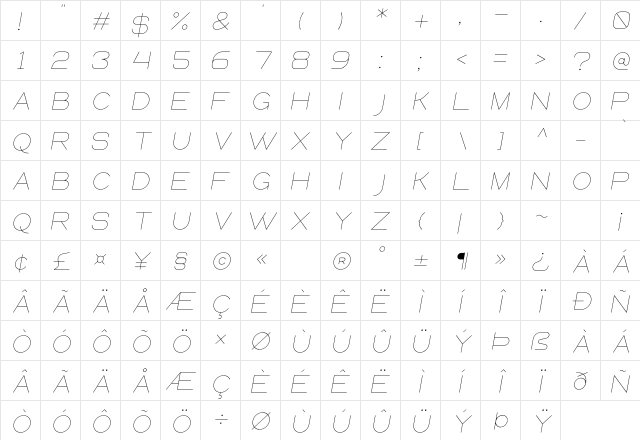
Queental Light Italic
| Designer | StringLabs |
Design Context for Queental Light Typeface
Queental Light offers clean, dependable letterforms without strong stylistic allegiance, making it a practical choice for designers who need flexibility. The slanted form adds forward momentum and visual energy. The delicate stroke weight brings airiness and refinement to layouts.